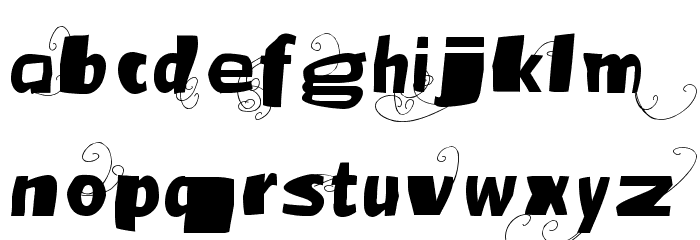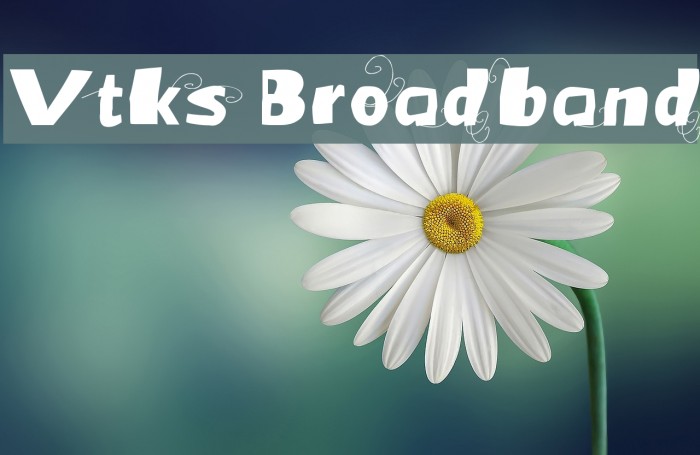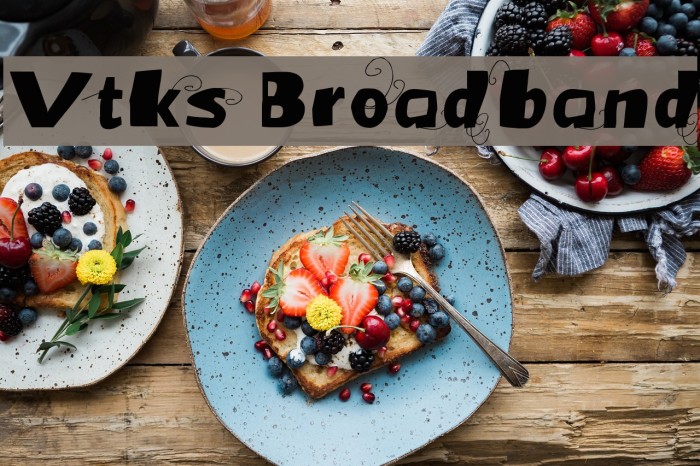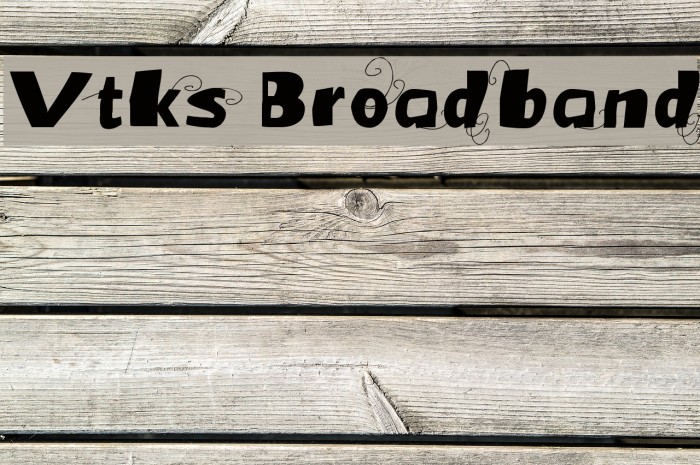
Vtks Broadband Font
This font features a bold and dynamic style with a strong presence. The uppercase letters are characterized by thick, blocky shapes with varying angles and widths, giving them a unique and eye-catching appearance. The lowercase letters incorporate decorative swirls and curls, adding an artistic flair that contrasts with the solid uppercase forms. This combination creates a playful yet assertive look, making it suitable for creative and bold design projects. The font's overall style is both modern and decorative, with a high contrast in stroke thickness that enhances its visual impact.
A bold, decorative font with dynamic shapes and artistic swirls.
- Proposed Projects: Ideal for posters, album covers, branding, and creative headlines.
- Overall Style: Modern, Decorative